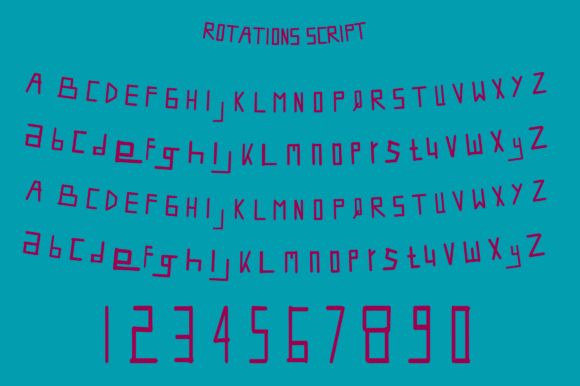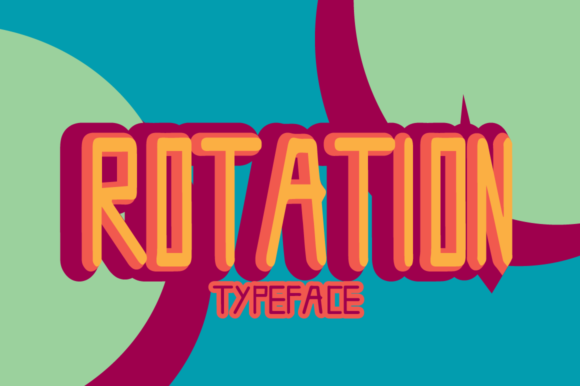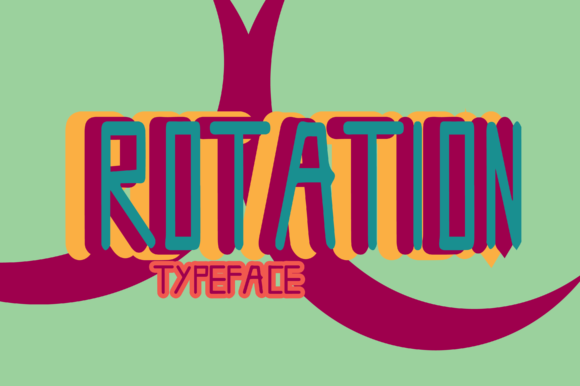
Introduction to Rotation Font
Rotation is a simple and minimalist sans serif font that will look amazing on your creative ideas.
Use it for product packaging, branding, banners, marketing materials, social media posts, or other creations that need inviting typography .